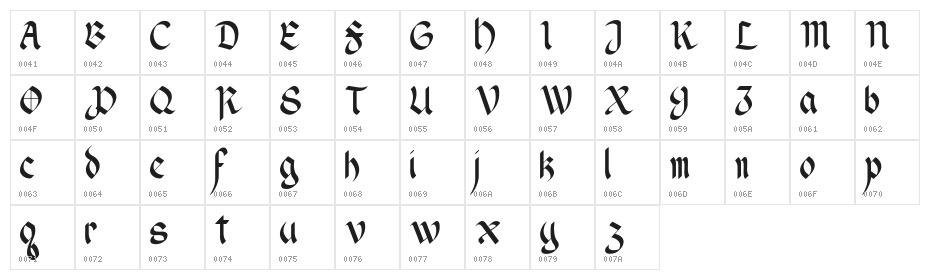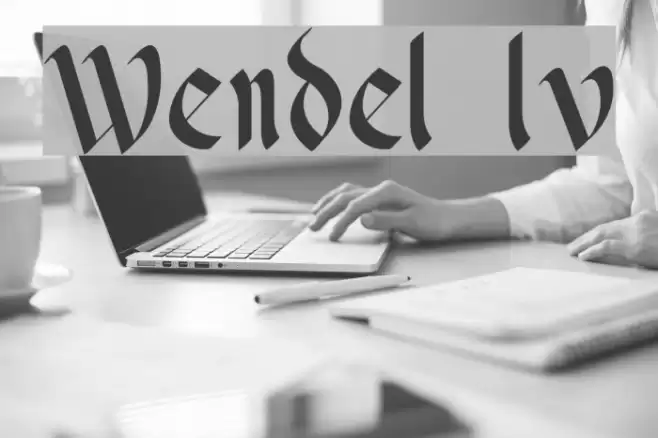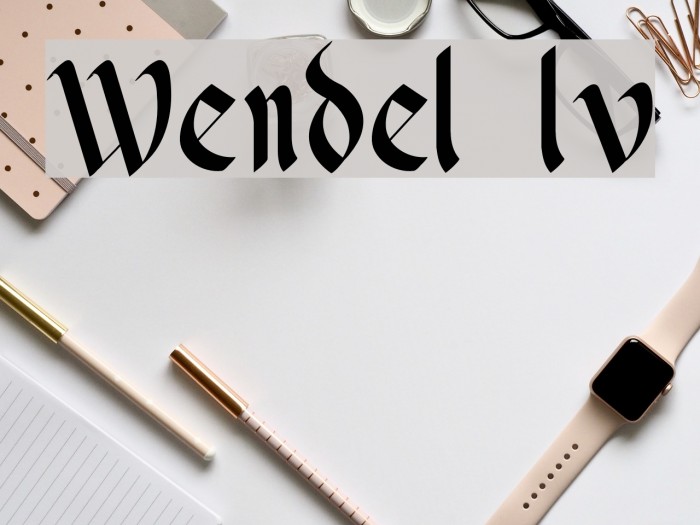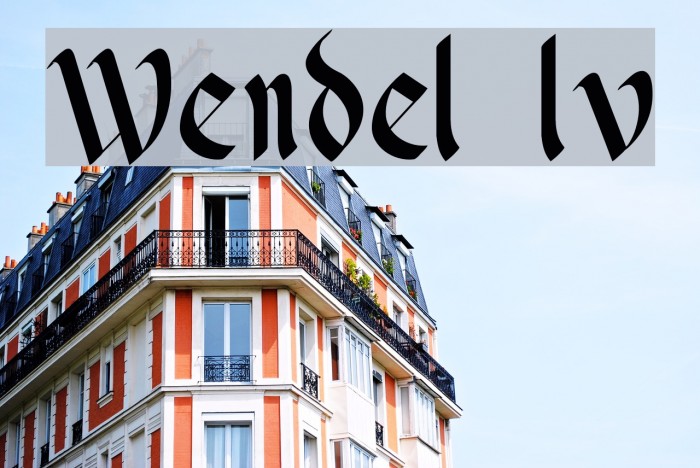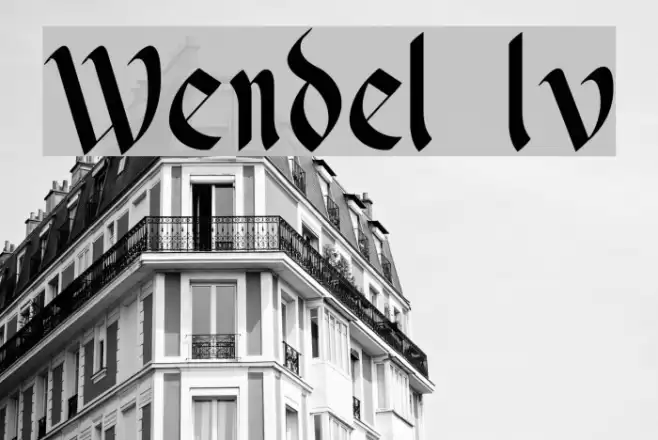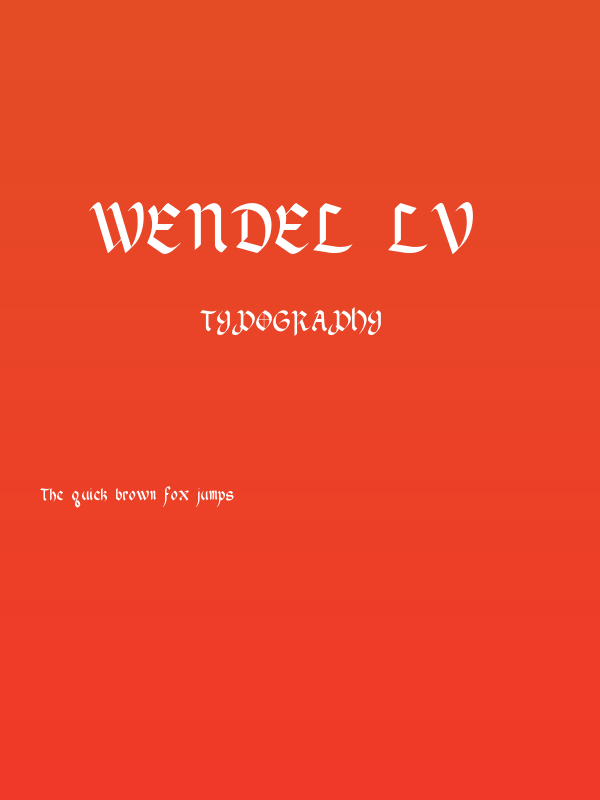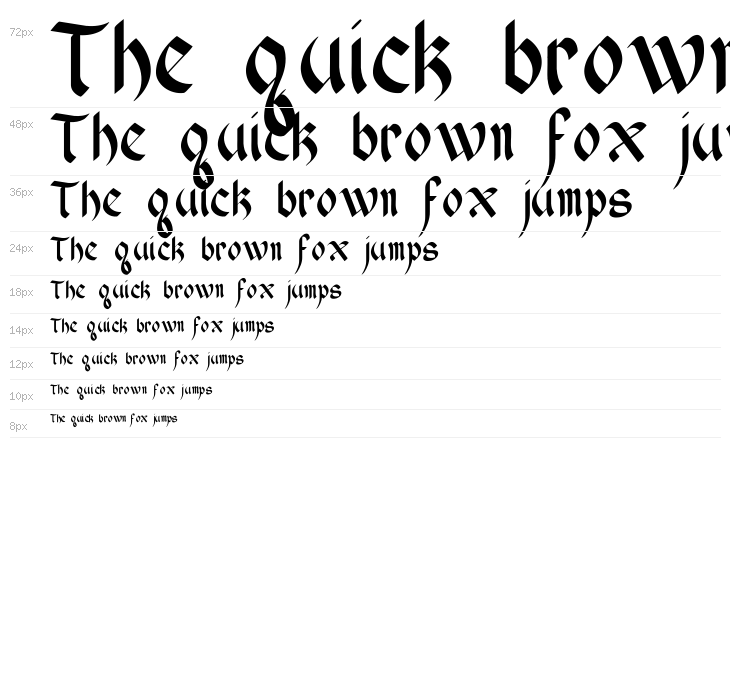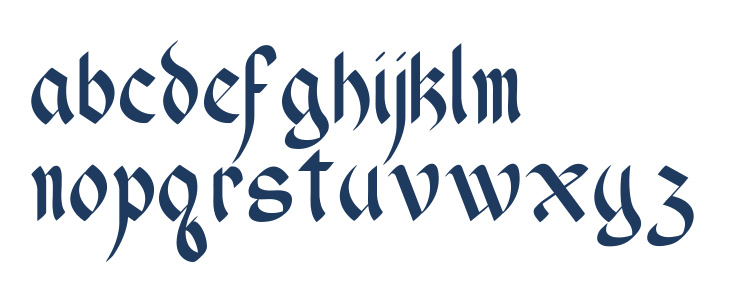
Wendel lv1 Font
Wendel lv1 Description
This font exhibits a classic blackletter style, characterized by its ornate and intricate design. The letters have sharp, angular lines with a distinct medieval aesthetic, reminiscent of Gothic script. The uppercase letters are bold and commanding, while the lowercase letters maintain a consistent flow with elegant curves and pointed edges. The numbers and special characters follow the same elaborate style, ensuring uniformity across the typeface. This font is ideal for projects that require a historical or traditional touch, offering a sense of grandeur and formality.
| Use Case | Headlines, Logos, Decorative text |
| Proposed Projects | Suitable for historical documents, wedding invitations, certificates, and branding that requires a traditional or Gothic touch. |